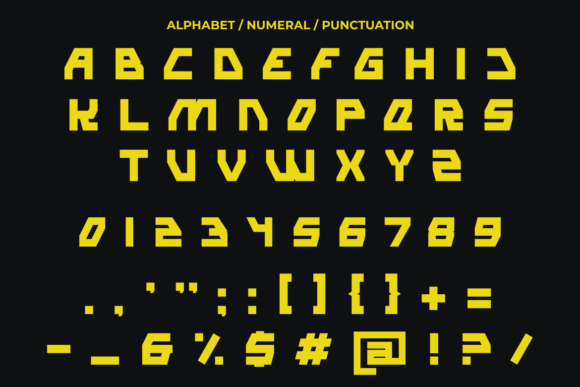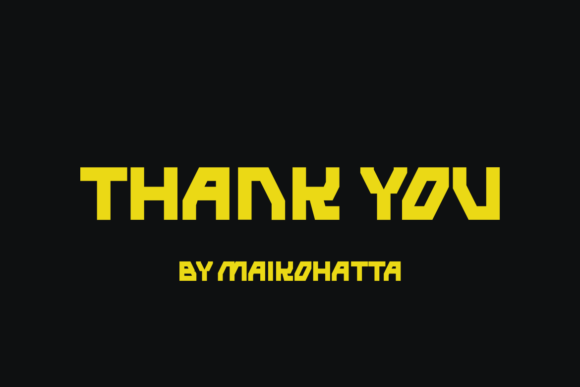
Introduction to Ralazar Font
Ralazar is a cool, bold, and modern display font.
Key Features of Ralazar Font
Why Choose Ralazar Font?
Ralazar Font offers exceptional quality and versatility, making it a valuable addition to your design toolkit. Whether you’re creating for personal projects or commercial use, Ralazar Font delivers professional results.